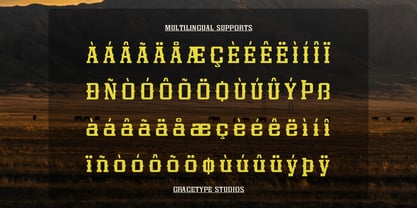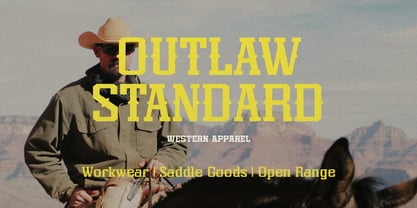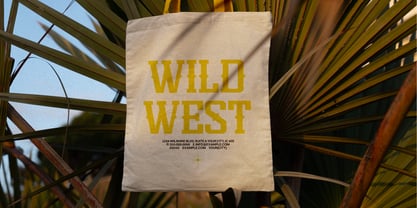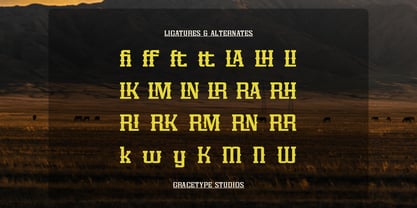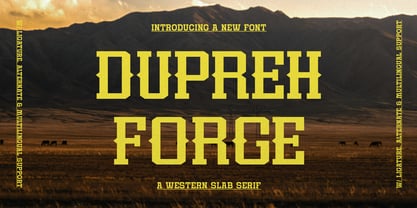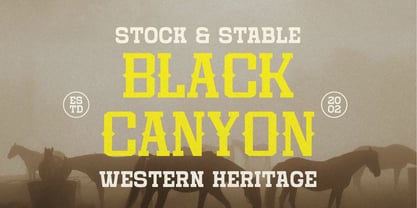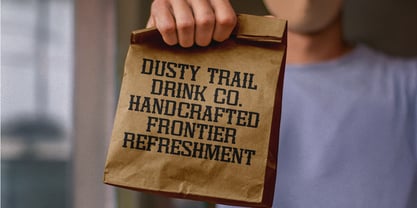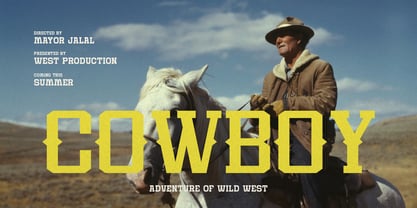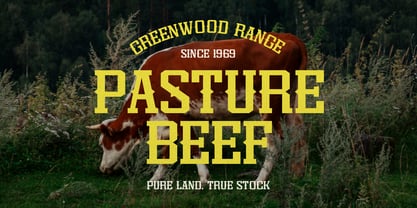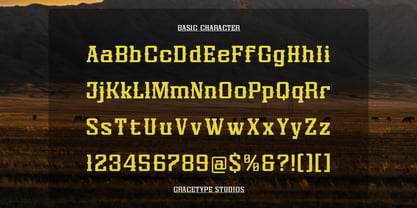
Dupreh Forge
by Tini Fitriani
The Dupreh Forge Font Family and published by Tini Fitriani. Dupreh Forge contains 2 styles and family package options. More about this family
Dupreh Forge | Western Slab Serif, from Gracetypestudio, suitable for any projects such as: logos, branding projects, homeware designs, product packaging, mugs, quotes, posters, shopping bags, t-shirts, book covers, name card, invitation cards, greeting cards, label, photography, watermark, special events, and all your other lovely projects that need a Slab Serif taste.